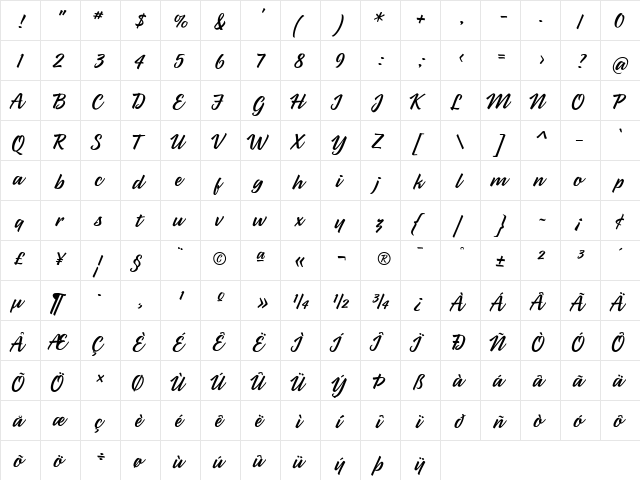
Parsley Script Regular
| Foundry | Jess Latham |
| Designer | Jess Latham |
Design Context for Parsley Script Typeface
Parsley Script brings a calligraphic fluidity to the page — its connecting strokes and expressive curves give it an unmistakably human quality.
Font Pairing: Combine Parsley Script with a simple geometric sans for maximum contrast — the tension between flowing curves and clean structure is a classic typographic pairing.
Pro Tip: Use Parsley Script for short runs of text — names, titles, or taglines. Extended body copy in script faces tires the eye quickly.